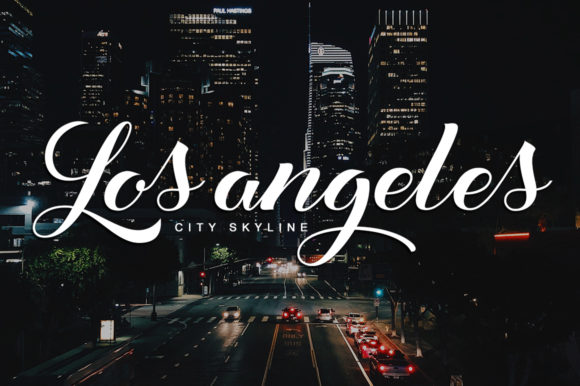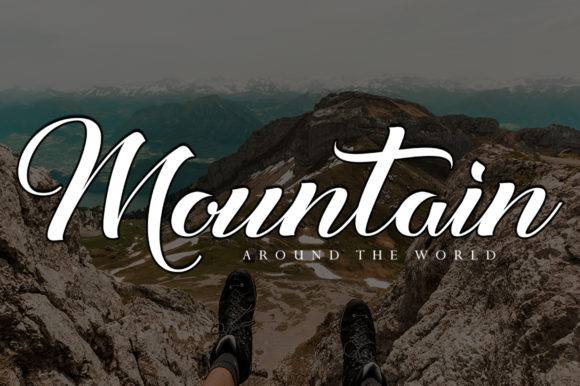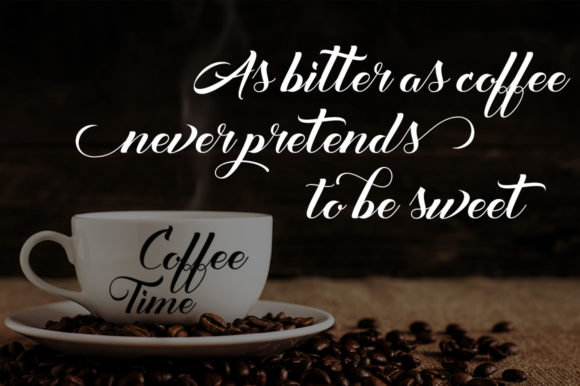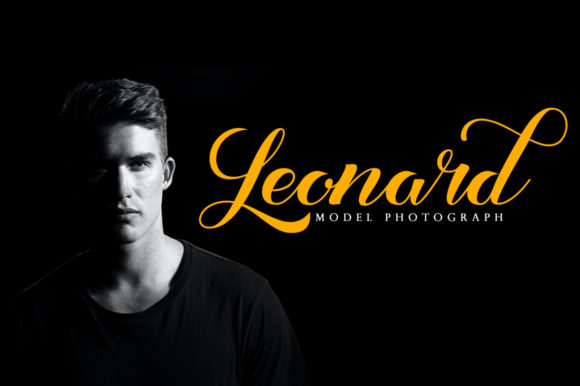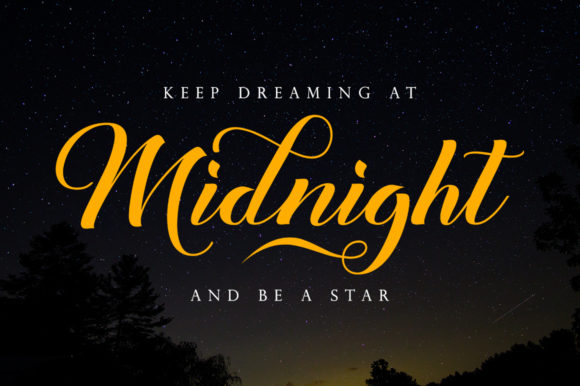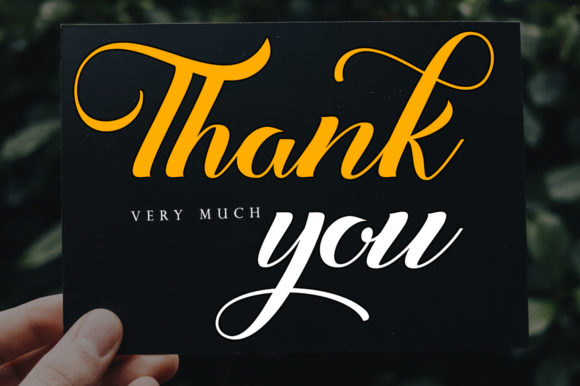
Baby Tokyo Font: Elevate Your Designs with Elegance and Sophistication
Baby Tokyo is a stunning handwritten font that has captured the hearts of designers and crafters worldwide. With its perfect blend of classic calligraphic influences and modern flair, this exquisite font is sure to become a true favorite in your collection. In this article, we’ll dive into the world of Baby Tokyo Font, exploring its unique features, and how it can elevate your projects to new heights.
The Birth of Baby Tokyo Font
Baby Tokyo Font is a masterfully designed typeface that boasts a unique personality. Its creator has poured their heart and soul into crafting a font that exudes elegance, sophistication, and a touch of playfulness. The result is a beautiful handwritten font that feels both contemporary and fresh, making it perfect for a wide range of design applications.
Key Features of Baby Tokyo Font
So, what makes Baby Tokyo Font so special? Here are some of its key features:
- Classy Calligraphic Influences: Baby Tokyo Font is deeply rooted in traditional calligraphy, with elegant strokes and flowing lines that evoke a sense of luxury and refinement.
- Modern Twist: Despite its classic influences, Baby Tokyo Font feels surprisingly modern and fresh, making it perfect for designers looking to create unique and eye-catching designs.
- Handwritten Charm: The font’s handwritten nature gives it a personal touch, making it ideal for projects that require a more intimate and emotive feel.
- Versatility: Baby Tokyo Font is incredibly versatile, suitable for a wide range of design applications, from branding and packaging to wedding invitations and digital marketing materials.
Design Applications for Baby Tokyo Font
Baby Tokyo Font is an incredibly versatile typeface that can be used in a variety of design applications. Here are some ideas to get you started:
- Branding and Identity: Use Baby Tokyo Font to create stunning logos, business cards, and letterheads that exude elegance and sophistication.
- Wedding and Event Design: Add a touch of romance and whimsy to your wedding invitations, save-the-dates, and event branding with Baby Tokyo Font.
- Packaging Design: Elevate your packaging designs with Baby Tokyo Font, perfect for luxury brands, cosmetics, and gourmet food products.
- Digital Marketing: Use Baby Tokyo Font in your digital marketing materials, such as social media graphics, email headers, and blog posts, to add a touch of personality and style.
Tips for Using Baby Tokyo Font
To get the most out of Baby Tokyo Font, here are some tips to keep in mind:
- Pair with Neutral Backgrounds: Baby Tokyo Font looks stunning on neutral backgrounds, allowing its elegant strokes to take center stage.
- Use in Combination with Other Fonts: Baby Tokyo Font pairs beautifully with other fonts, so don’t be afraid to get creative and experiment with different font combinations.
In conclusion, Baby Tokyo Font is a true gem in the world of typography. Its exquisite handwritten design, classy calligraphic influences, and modern twist make it the perfect addition to any design collection. Whether you’re a designer, crafter, or DIY enthusiast, Baby Tokyo Font is sure to inspire and elevate your projects to new heights. So why wait? Fall in love with Baby Tokyo Font and bring your designs to life with elegance, sophistication, and style!